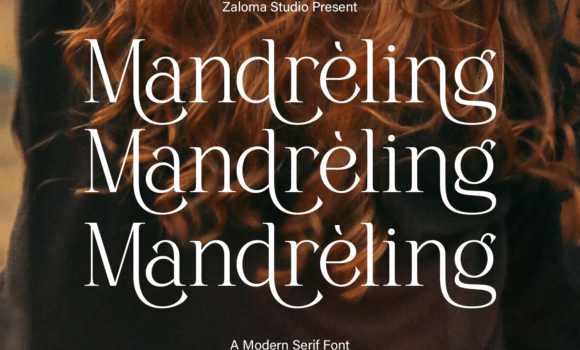
mandreling
Mandreling Font - Featured Image
Mandreling Font – Free Download Introduction to Mandreling Font Mandrèling is a modern serif font with an elegant, classic touch. 📸 Preview Gallery 6 images 📌 Product Name Mandreling Font 👤 Author Zaloma Studio 📂 Category Explore ⬇️ Download Mandreling